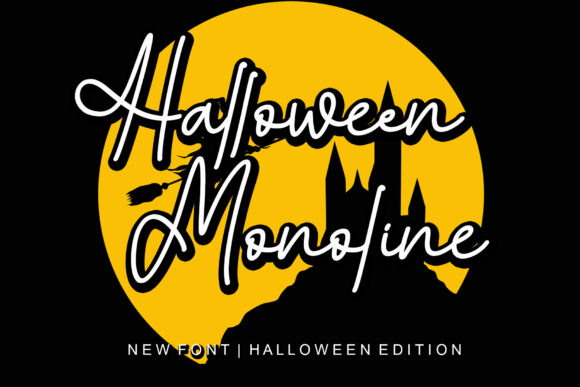
Unleash the charm of Halloween Monoline, a captivating script font that dances with elegance and style. Step into a world of vintage allure, where every letter is a finely crafted work of art, reminiscent of a bygone era. Let your imagination soar as you explore the endless possibilities with Halloween Monoline.
With its smooth, flowing curves and impeccable balance, this script font is an absolute delight for designers seeking a touch of sophistication and timelessness in their projects. Whether you're crafting a fashion brand logo, designing an editorial layout, or creating captivating social media graphics, Halloween Monoline will elevate your work with its undeniable charm.
Experience the magic as your designs come to life, infused with the timeless beauty of Halloween Monoline. Each character carries a sense of history and grace, inviting your audience to embark on a journey through the annals of style. From delicate wedding invitations to enchanting posters, your creations will exude an air of sophistication that will leave a lasting impression.
Don't miss this opportunity to add Halloween Monoline to your font collection and unlock a world of creative possibilities. Let your imagination run wild as you explore the endless applications of this versatile font. It's perfect for crafting logos, branding materials, social media posts, invitations, posters, and so much more. The possibilities are limitless, and the results will be nothing short of stunning.
So, embrace the timeless charm of Halloween Monoline and embark on a creative adventure that will captivate your audience. Add this exquisite font to your repertoire today and witness the transformation as your designs take on a life of their own.